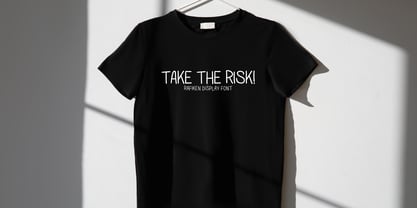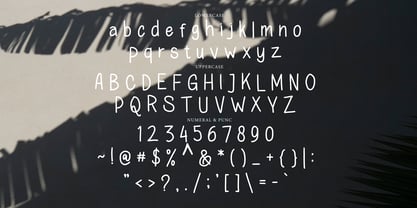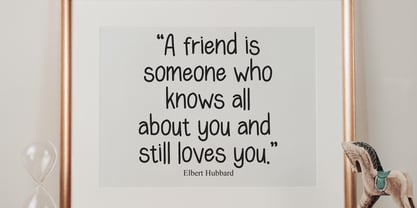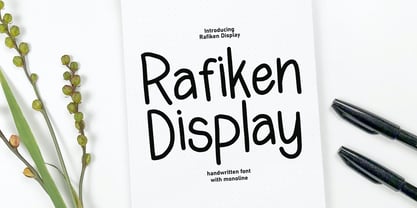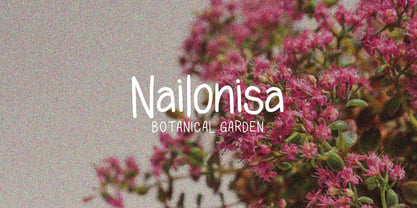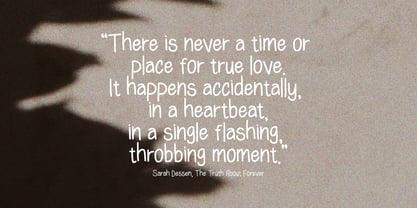
Rafiken Display
by Tebaltipis Studio
The Rafiken Display Font Family was designed by Dzulka Elfira and published by Tebaltipis Studio. Rafiken Display contains 1 styles. More about this family
Rafiken feels playfully nostalgic and delivers an incredible vintage retro aesthetic. Use this display font to add that special retro touch to any design idea you can think of !!! Masterfully designed to become a true favorite, this font has the potential to bring each of your creative ideas to the highest level!
Designers: Dzulka Elfira
Foundry: Tebaltipis Studio